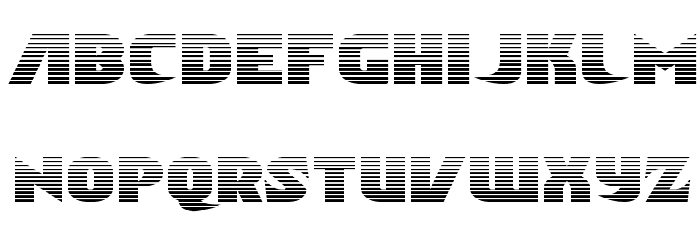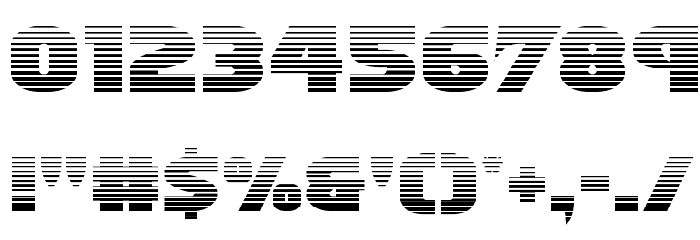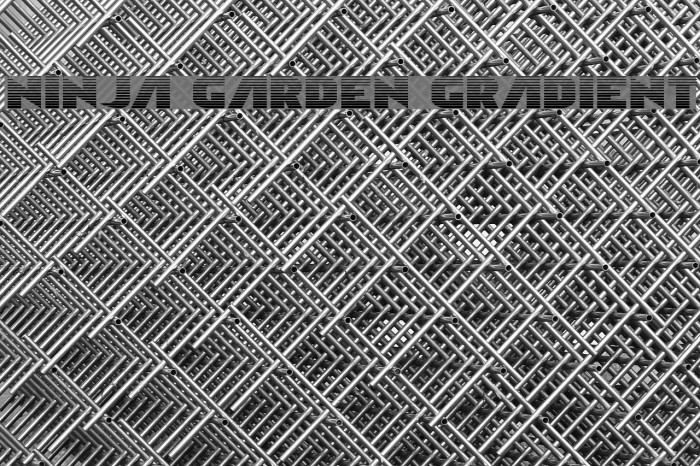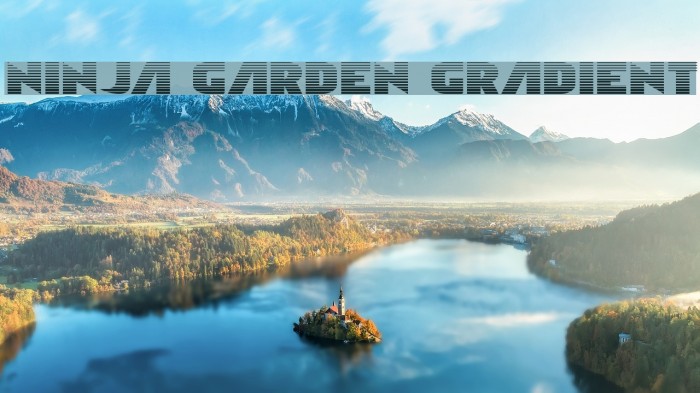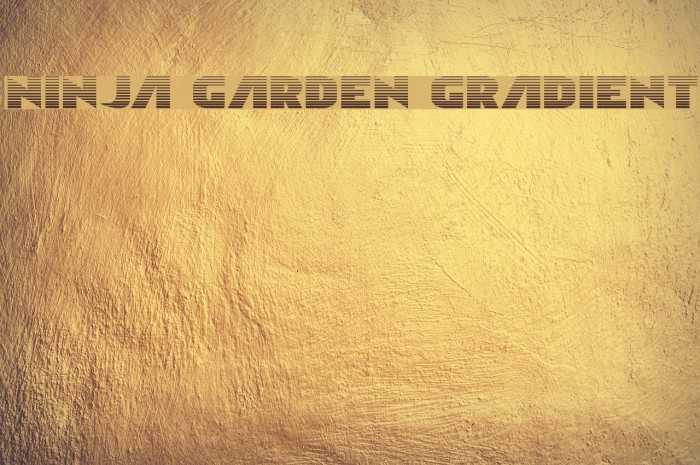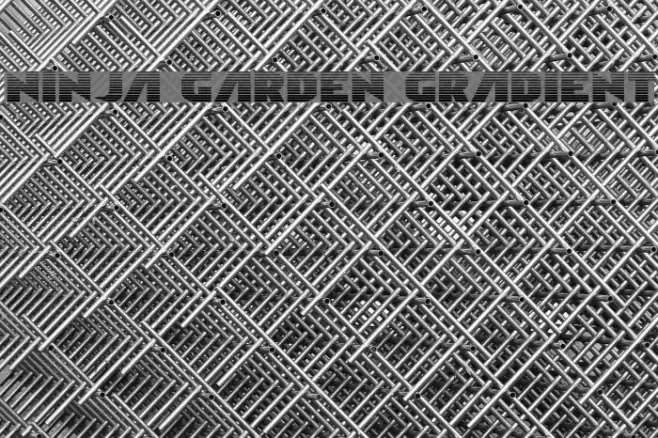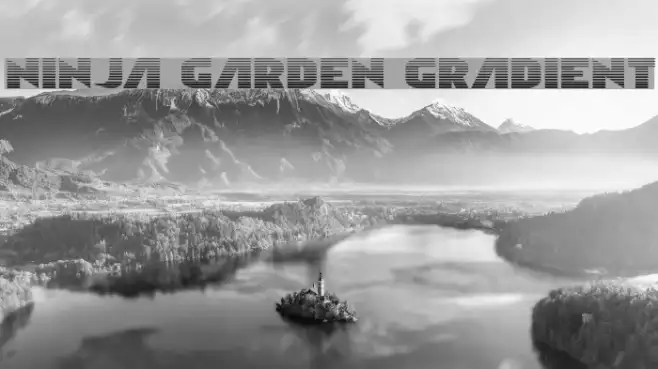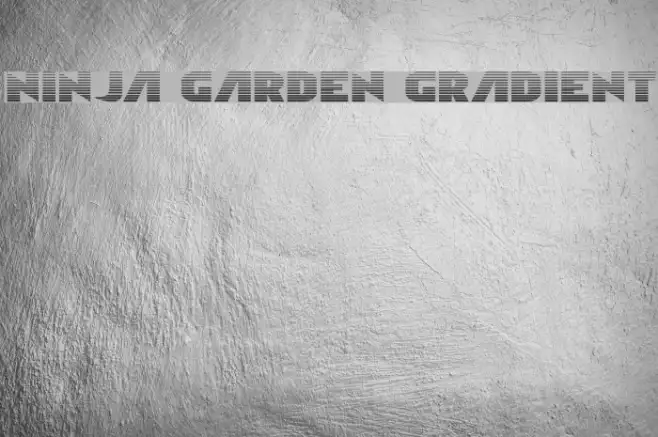
Ninja Garden Gradient Font
This font features a bold, modern design with a unique gradient effect created by horizontal lines running through each character. The uppercase and lowercase letters, as well as numbers and special characters, maintain a consistent style that emphasizes a futuristic and dynamic appearance. The bold strokes and distinct line pattern give it a striking visual impact, making it ideal for attention-grabbing designs. The font's geometric shapes and sharp edges contribute to its contemporary feel, while the gradient lines add depth and movement.
A bold, modern font with a unique gradient line effect for a dynamic look.
- Proposed Projects: Ideal for futuristic branding, tech-related projects, video game titles, and modern advertising campaigns.